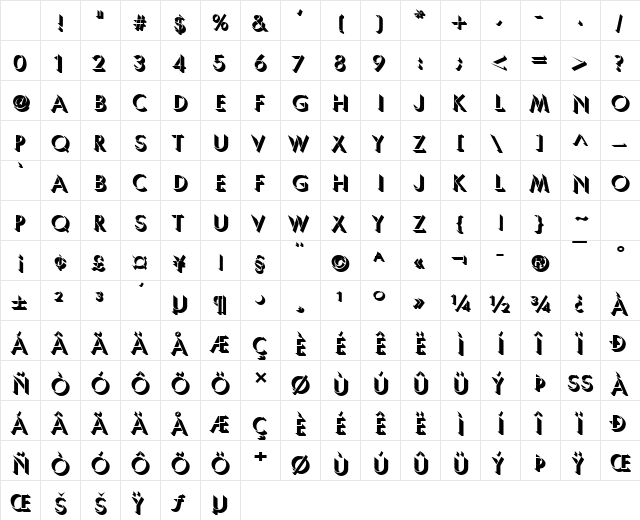
Umber is a composed and adaptable typeface that performs quietly and consistently across a wide range of design contexts. Its bold stroke weight gives it real presence on the page.